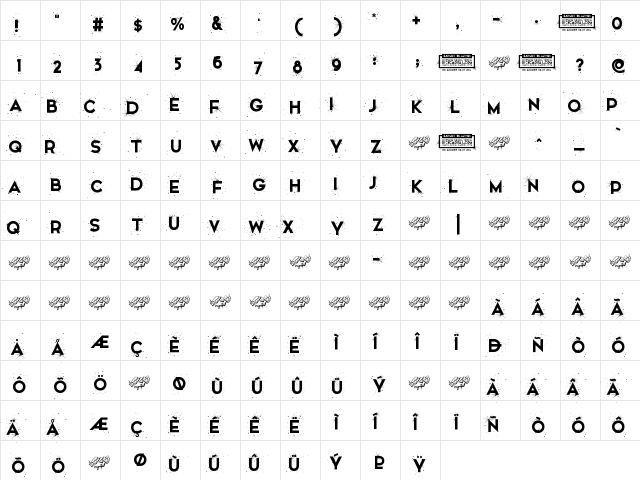
Snowinter Free
Design Context for Snowinter Typeface
Snowinter is a composed and adaptable typeface that performs quietly and consistently across a wide range of design contexts.